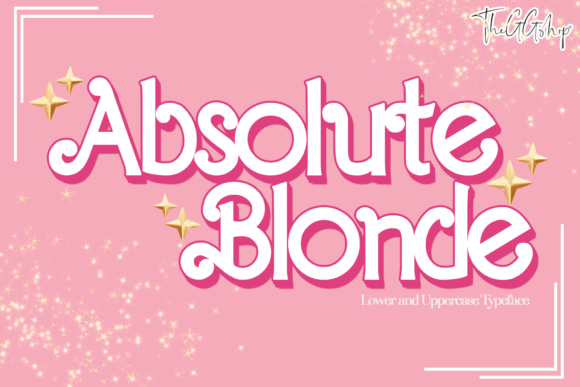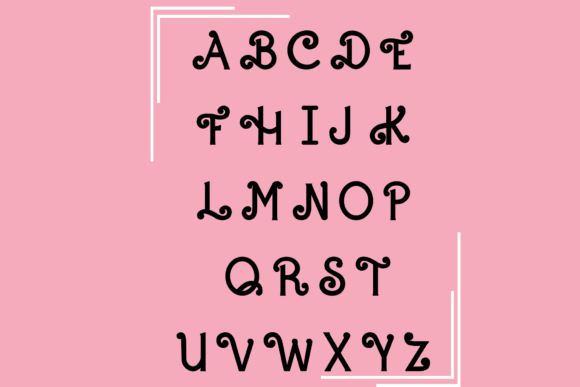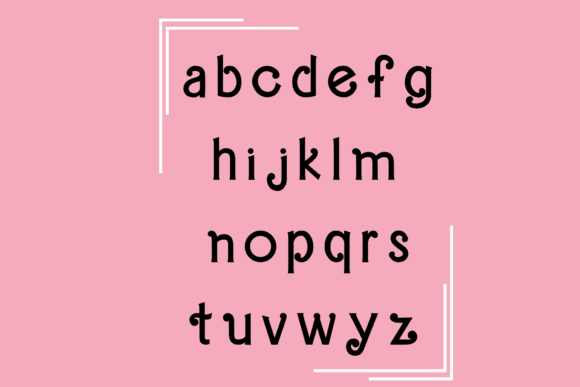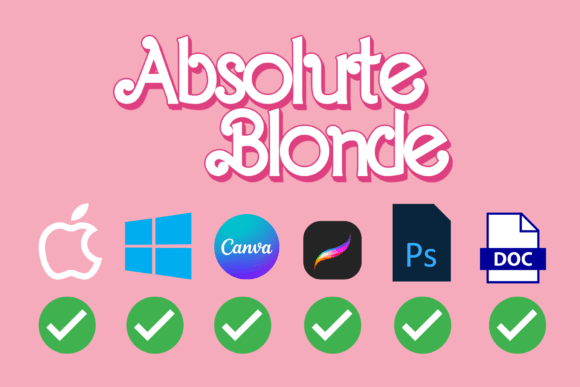
Absolute Blonde Font: A Cute Display Font for Cricut & DIY
About the Absolute Blonde Font
The wait is over! The incredible Absolute Blonde Font is now available for your design toolkit. Absolute Blonde is a font created between 2016-2017, partially made totally from scratch, including new Upper and Lower letters for the whole alphabet. The font became available online in 2017. Basic punctuation and numbers included.
Absolute Blonde’s strong, confident strokes make it ideal for headlines, branding applications, and short impactful text on posters or packaging. Its assertive nature, however, makes it less suitable for body copy or lengthy paragraphs; legibility suffers at smaller sizes. Avoid using it in user interfaces where readability is paramount.
Absolute Blonde Font Usage Examples
Absolute Blonde Font Example